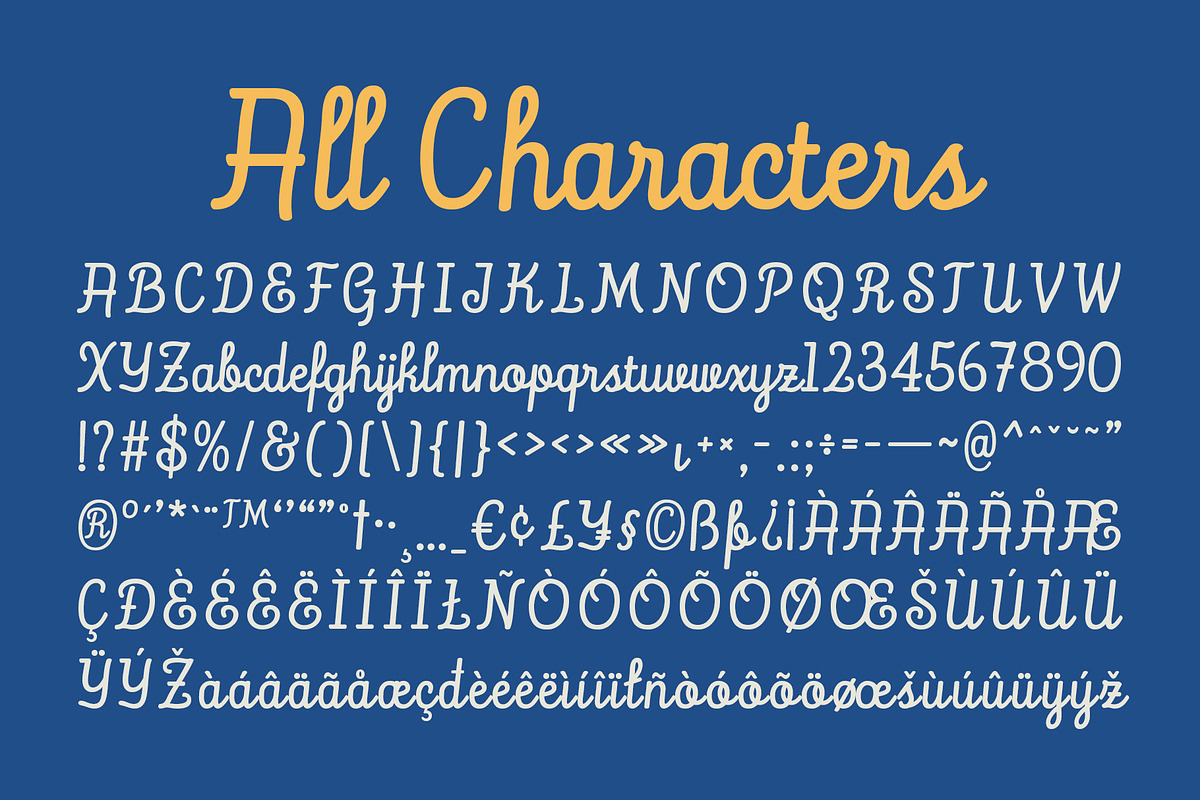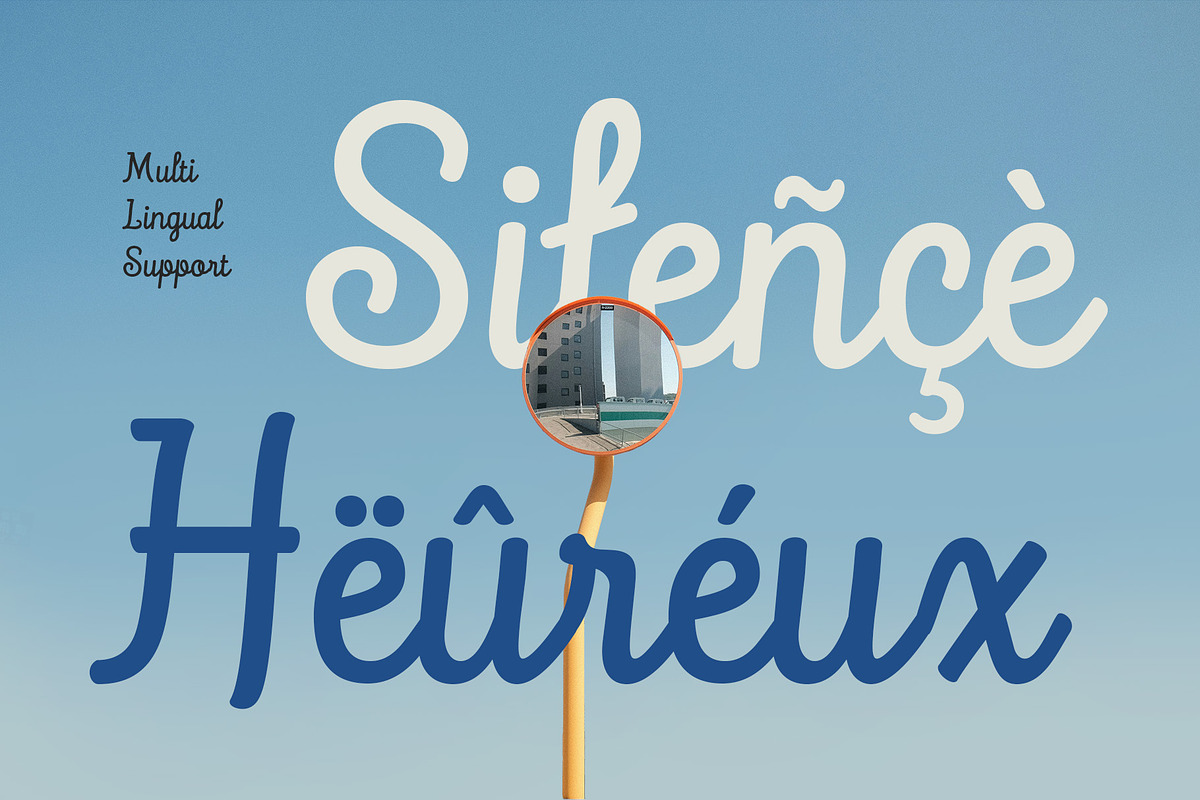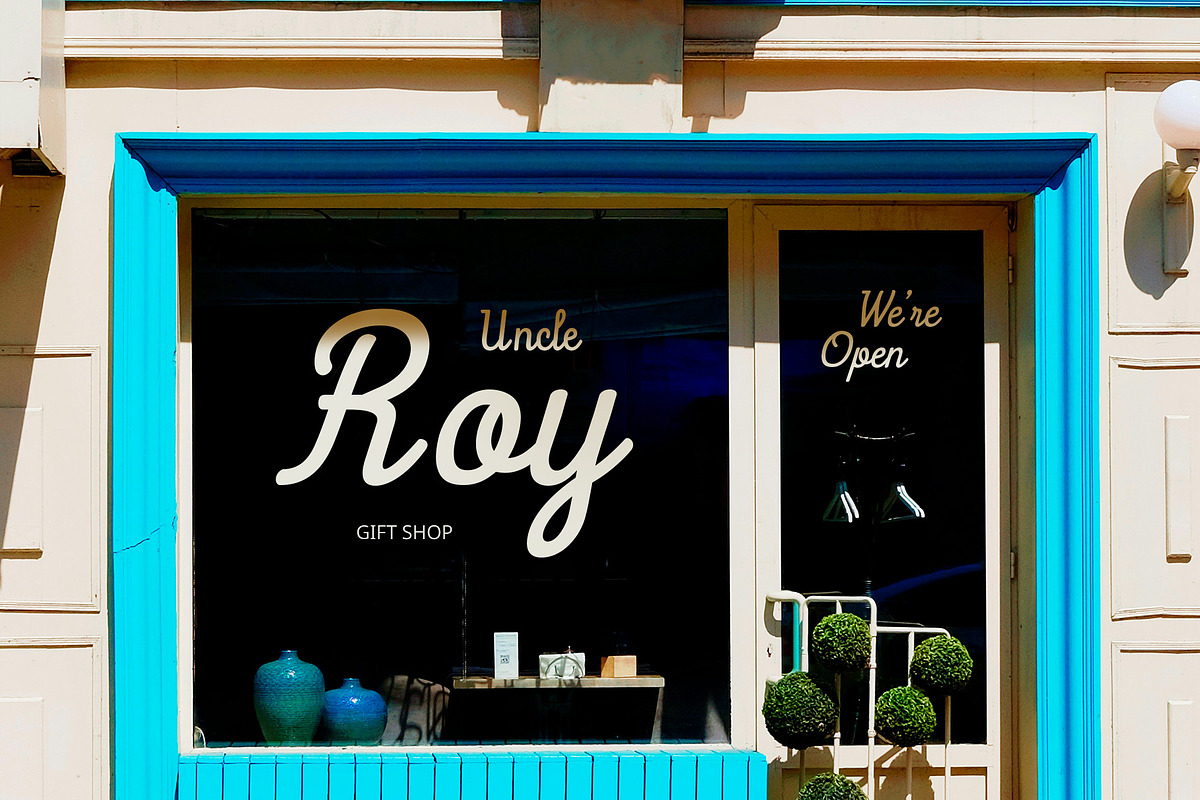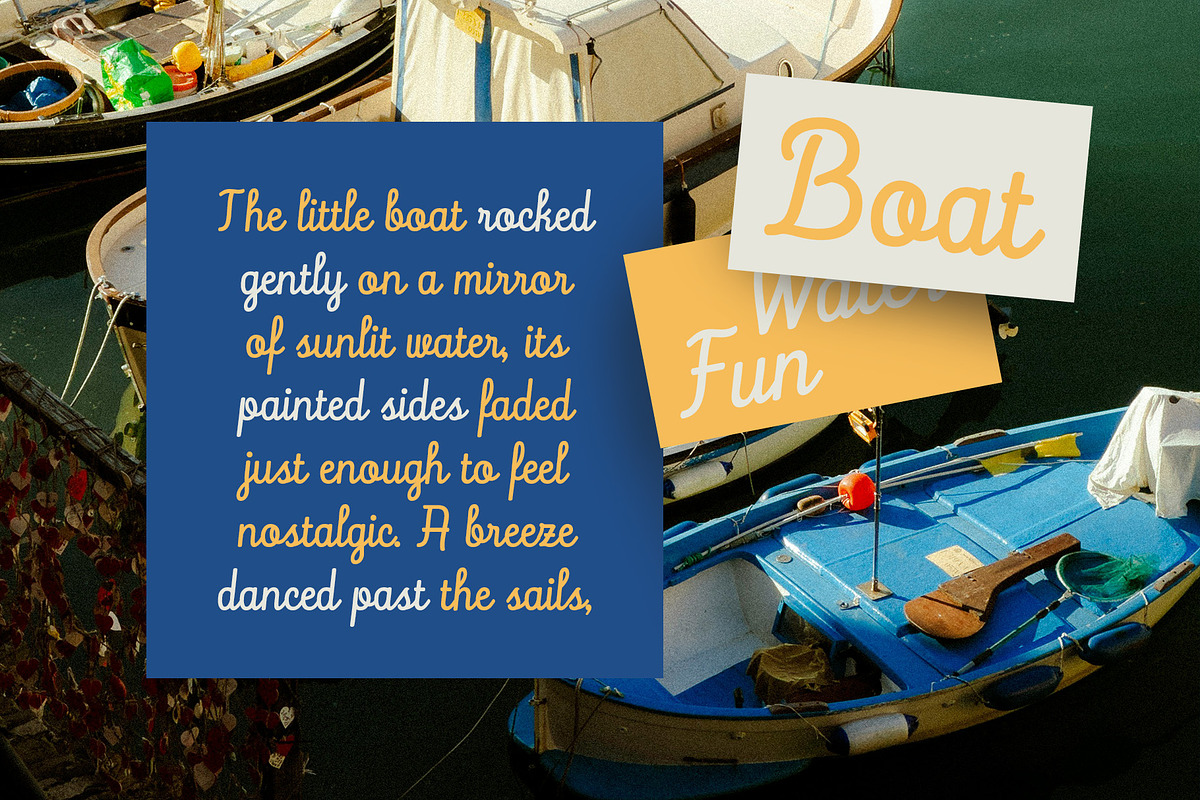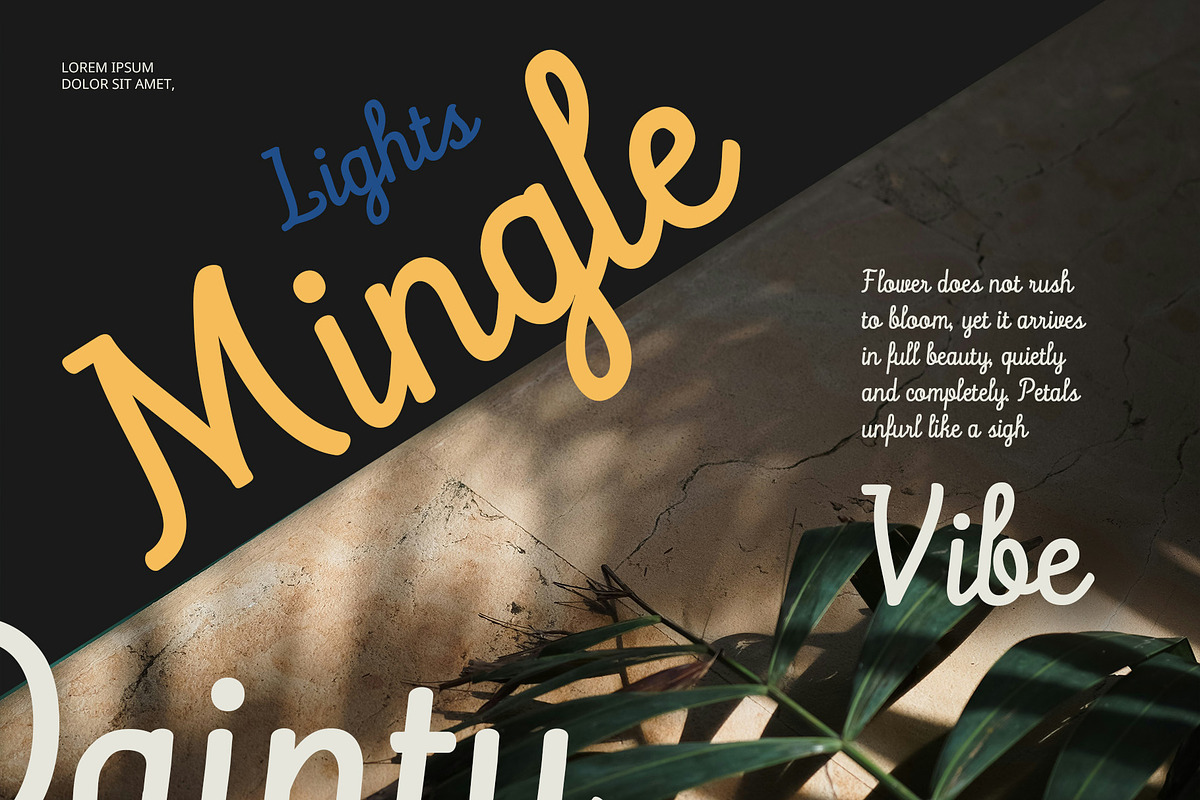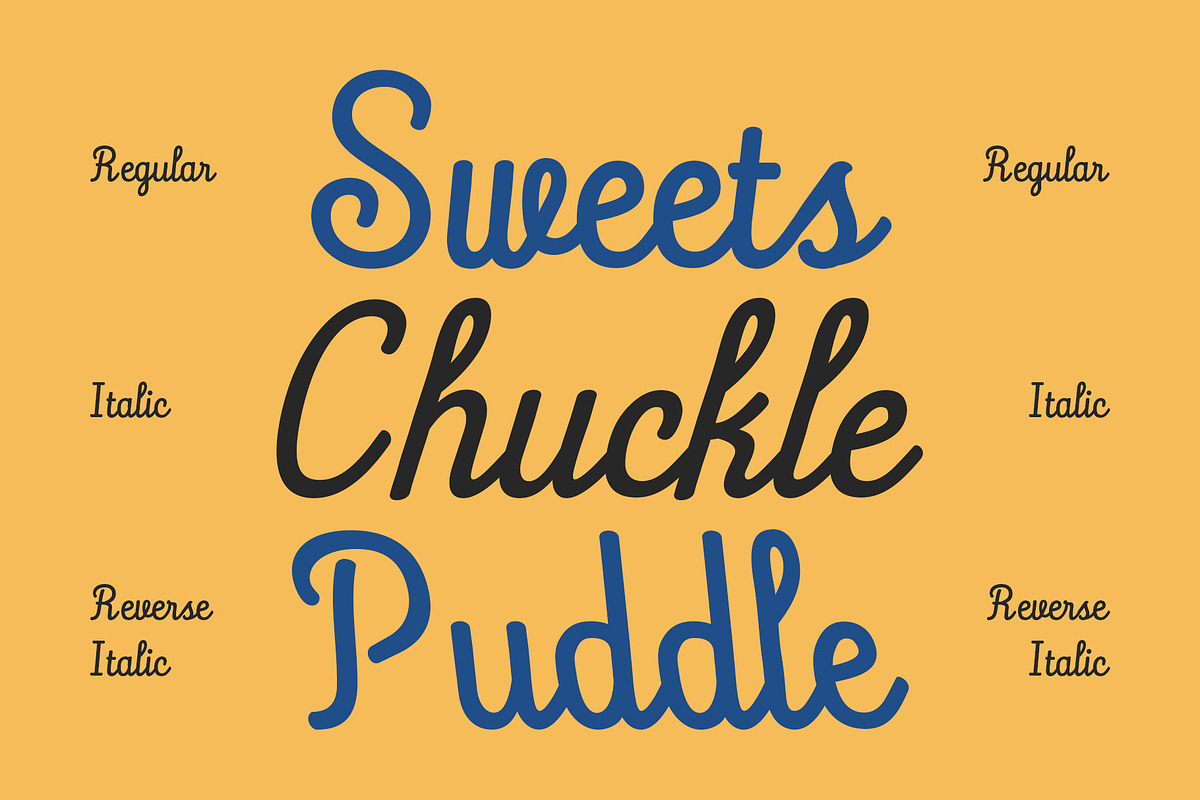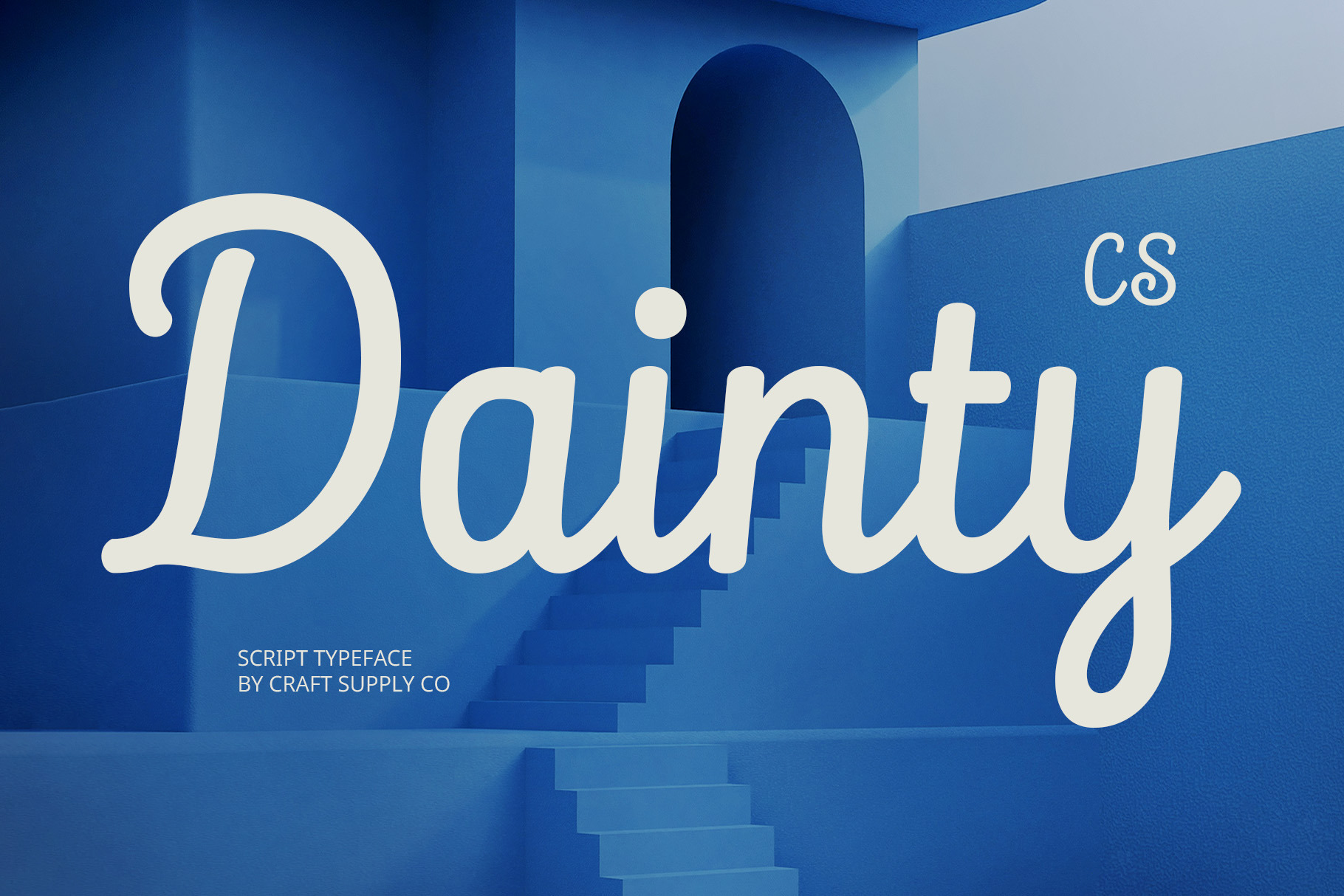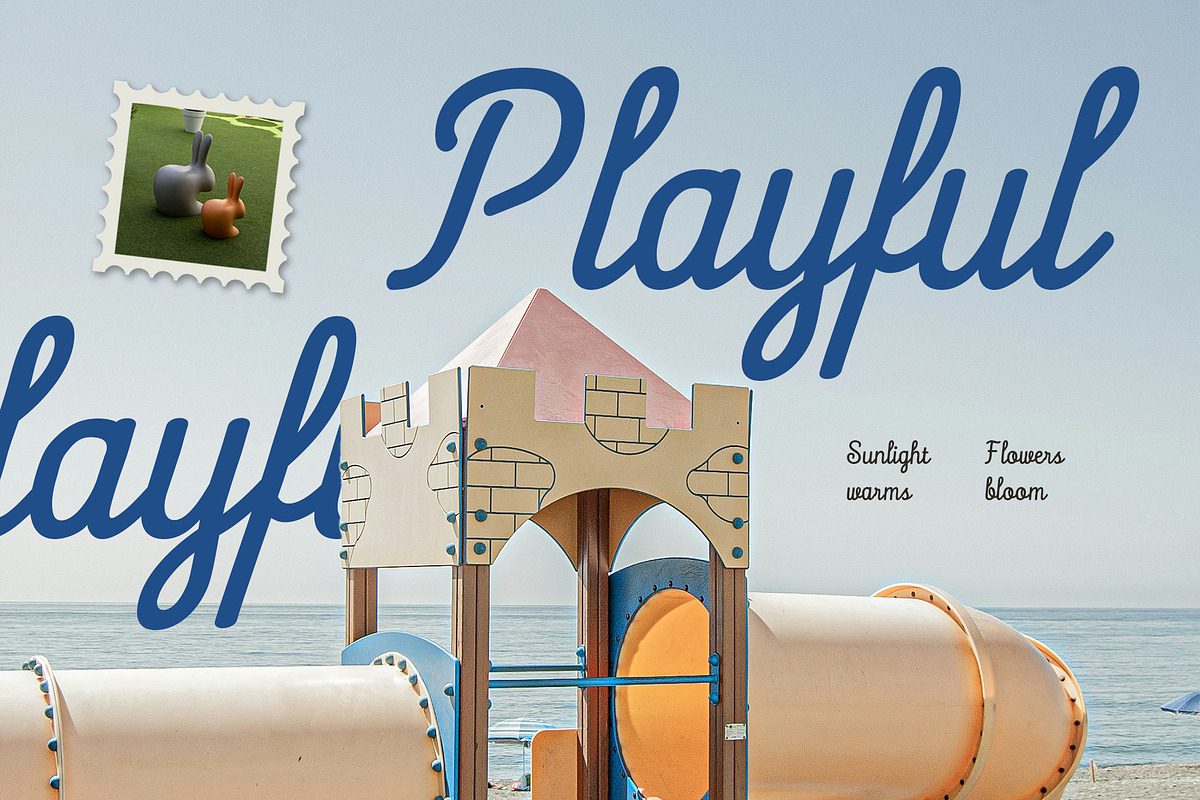
CS Dainty – Script Font
CS Dainty – Script Font: Where Soft Beauty Meets Modern Simplicity
Contemporary, Clean, and Slim Style CS Dainty is a modern script font that features a clean, slim, and contemporary design. Its letterforms flow with graceful simplicity, capturing the elegance of handwritten text while maintaining clarity and modern appeal. This refined structure offers a stylish yet approachable personality, making it a perfect choice for feminine-themed visual identities.
Elegant Handwritten Flow Each stroke of CS Dainty is carefully crafted to evoke the look of smooth, graceful handwriting. The font’s gentle curves and consistent rhythm convey a beautiful, aesthetic, and charming impression—ideal for designs that require a soft and personal touch. Whether it’s for quotes, invitations, or logos, the natural elegance stands out.
Feminine, Cute, and Captivating Look CS Dainty combines minimal elegance with a subtle sweetness, projecting a feminine, cute, and stylish tone. Its modern simplicity gives it versatility, while its soft character makes it especially appealing for beauty-related and lifestyle designs that aim to feel heartfelt and polished.
Perfect for Trendy and Stylish Designs This script font is ideal for various creative applications, including beauty branding, wedding stationery, product packaging, and social media graphics. CS Dainty adds a modern yet romantic flair to your visuals—making them feel warm, trendy, and full of personality.